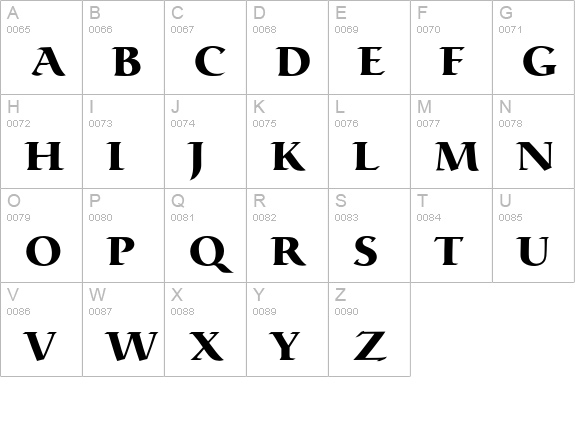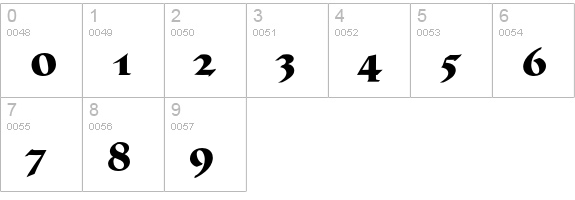
Catull Expert BQ Bold OsF Font Details
Catull Expert BQ Bold OsF is a strong, high-contrast variant in the Catull typeface family \xE2\x80\x94 well suited to headlines, attention-grabbing titles, and strong calls-to-action.
Catull Expert BQ Bold OsF is a stunning and sophisticated font that exudes elegance and professionalism. With its bold and striking design, this font is perfect for making a bold statement in your projects. Its intricate details and sharp lines make it a standout choice for any design application. Whether you're creating a logo, headline, or any other design element, Catull Expert BQ Bold OsF will add a touch of class and style. The best part is that Catull Expert BQ Bold OsF font is available for free download at FontsMarket.com. This means you can easily access this high-quality font without breaking the bank. Don't miss out on the opportunity to elevate your designs with this exquisite font. Download Catull Expert BQ Bold OsF today and take your projects to the next level!